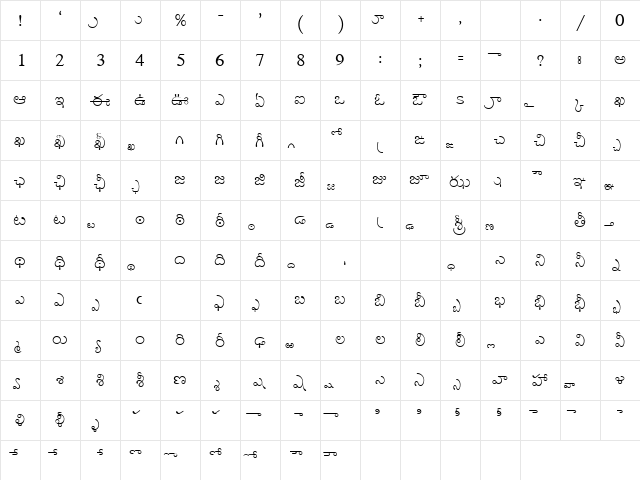
Shree-Tel-0900 Normal Font Preview
Shree-Tel-0900 Normal
Shree-Tel-0900 Normal Font Details
Design Context for Shree-Tel-0900 Typeface
Shree-Tel-0900 offers clean, dependable letterforms without strong stylistic allegiance, making it a practical choice for designers who need flexibility.